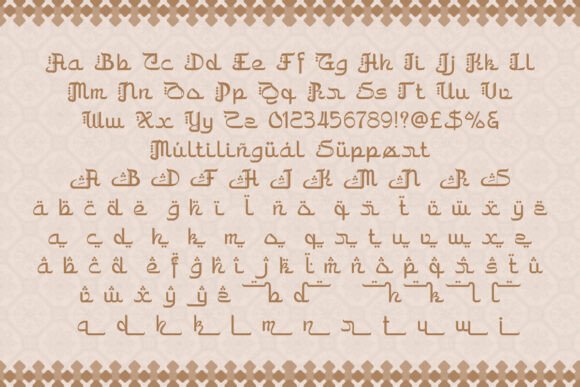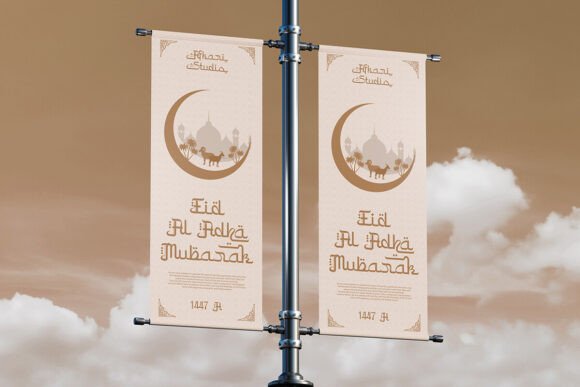
Alami Font: Elegant Arabic Calligraphy for Modern Branding
About the Alami Font
Add a touch of class to your work with the Alami Font, a truly exceptional typeface. Alami is a modern Arabic script typography that beautifully blends the classic charm of Arabic calligraphy with a sleek, contemporary touch. Designed for versatility and visual impact, this Arabic font style is perfect for designers seeking cultural depth with modern flair.
Whether you’re designing a halal brand, crafting visuals for Ramadan and Eid, or adding a cultural touch to your packaging or social media content — Alami helps your message feel authentic, warm, and full of character.
Alami’s elegant yet modern feel makes it ideal for headlines, logos, and short-form text in branding projects, particularly those with a cultural or heritage focus. It excels in packaging design, adding a touch of sophistication to product labels and promotional materials. However, its decorative nature makes it less suitable for body text or lengthy paragraphs, as readability would suffer.
For optimal visual harmony, pair Alami with a clean sans-serif like Open Sans for body copy or a geometric sans-serif like Futura for a more modern contrast. A subtle serif like Merriweather can add warmth and balance if a more traditional feel is desired. Avoid pairing it with overly ornate scripts, which might create visual clutter.
Alami projects a sophisticated and approachable personality, blending traditional Arabic calligraphy with contemporary aesthetics. It is best suited for brands aiming for a balance of cultural authenticity and modern appeal, creating a sense of timeless elegance.